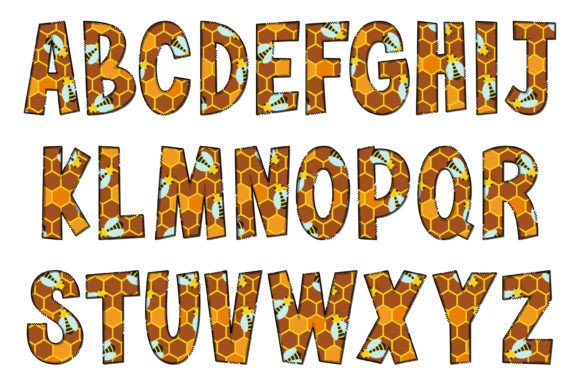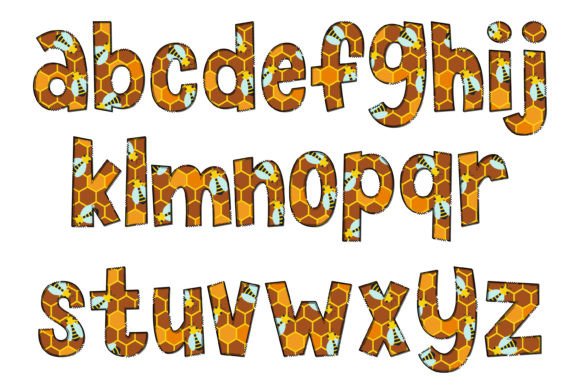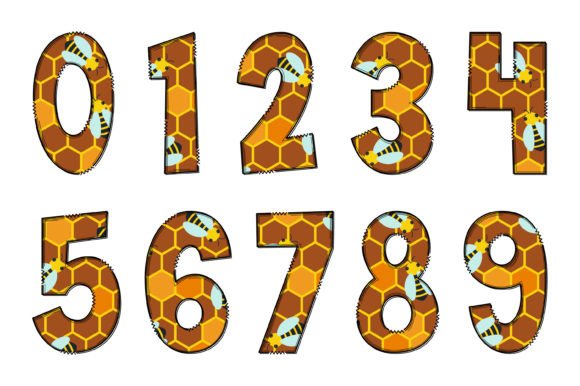
Unlock the Sweet Charm of Your Designs with Honey Bee Font
Have you ever been in the midst of a creative project, struggling to find the perfect font to convey the playful and whimsical feel you’re going for? You know, that moment when the perfect combination of words and images seems just out of reach? For designers and creatives, finding the right font can be the key to unlocking that elusive ‘wow’ factor.
Enter Honey Bee Font, a delightful and colorful typeface designed to bring a touch of sweetness to your designs. With its playful and artistic feel, this font is perfect for children’s books, posters, invitations, and greeting cards, among other creative projects. As a color font (Opentype-SVG), it’s compatible with popular design software like PhotoShop, Illustrator, Silhouette, and Inkscape, making it a valuable addition to any designer’s toolkit.
Honey Bee Font Key Features
- Unique Characteristics: The Honey Bee Font features a unique, hand-drawn design with intricate details and subtle texture, giving it a warm and inviting feel.
Honey Bee Font Review
As a designer, I’ve had the chance to work with a wide range of fonts, but the Honey Bee Font caught my eye. Here’s my honest review:
- Honey Bee Font has a unique and playful style that’s perfect for adding a touch of whimsy to your designs.
- The font is highly customizable, with a range of options for adjusting the weight, spacing, and color.
- It’s a great choice for projects that require a friendly, approachable tone.
- The font may not be suitable for professional or formal projects, as it can come across as too casual.
- Some users may find the font difficult to read at small sizes, so it’s essential to test it thoroughly.
- The font’s unique style may not be to everyone’s taste, so it’s crucial to consider your target audience.
I think the Honey Bee Font is a great addition to any designer’s toolkit, but it’s essential to use it judiciously. With its playful style and high customization options, it’s perfect for projects that require a lighthearted tone. However, it may not be the best choice for more formal or professional projects.
The Honey Bee Font is perfect for:
- Children’s books and educational materials.
- Summer-themed designs and graphics.
- Food and beverage branding, particularly for honey or bee-related products.